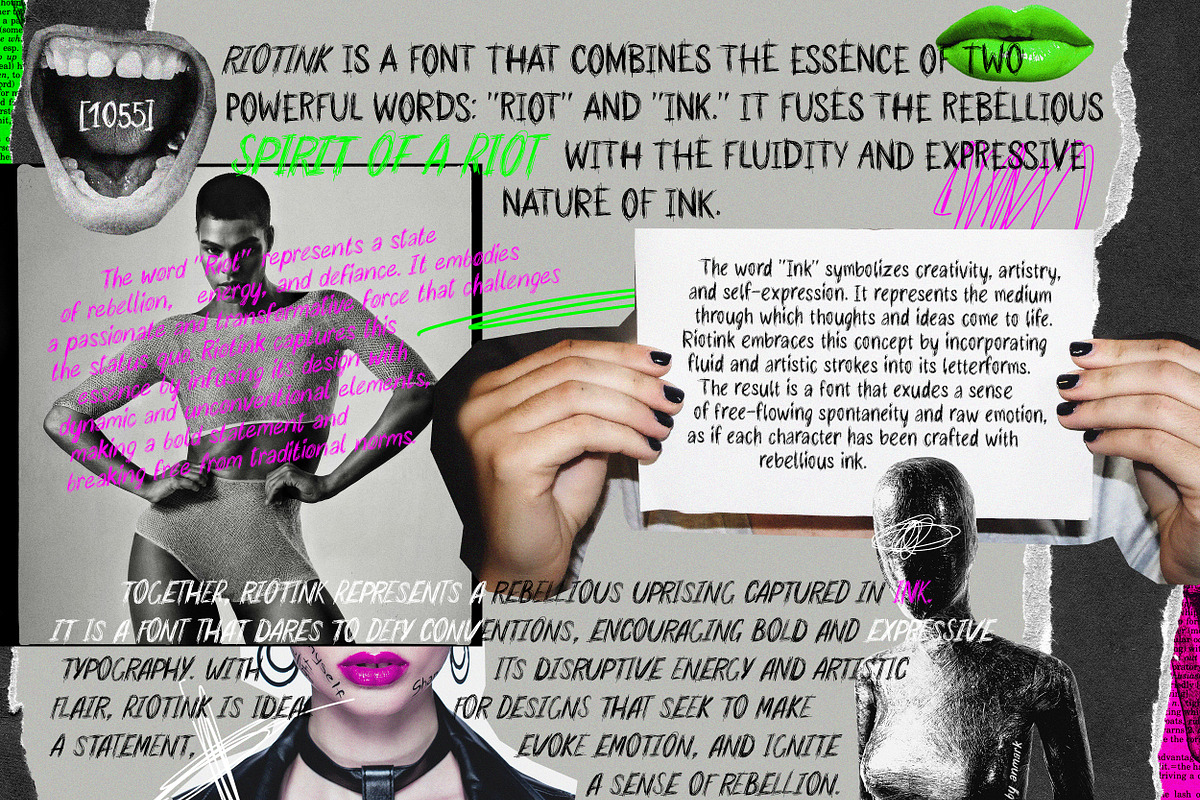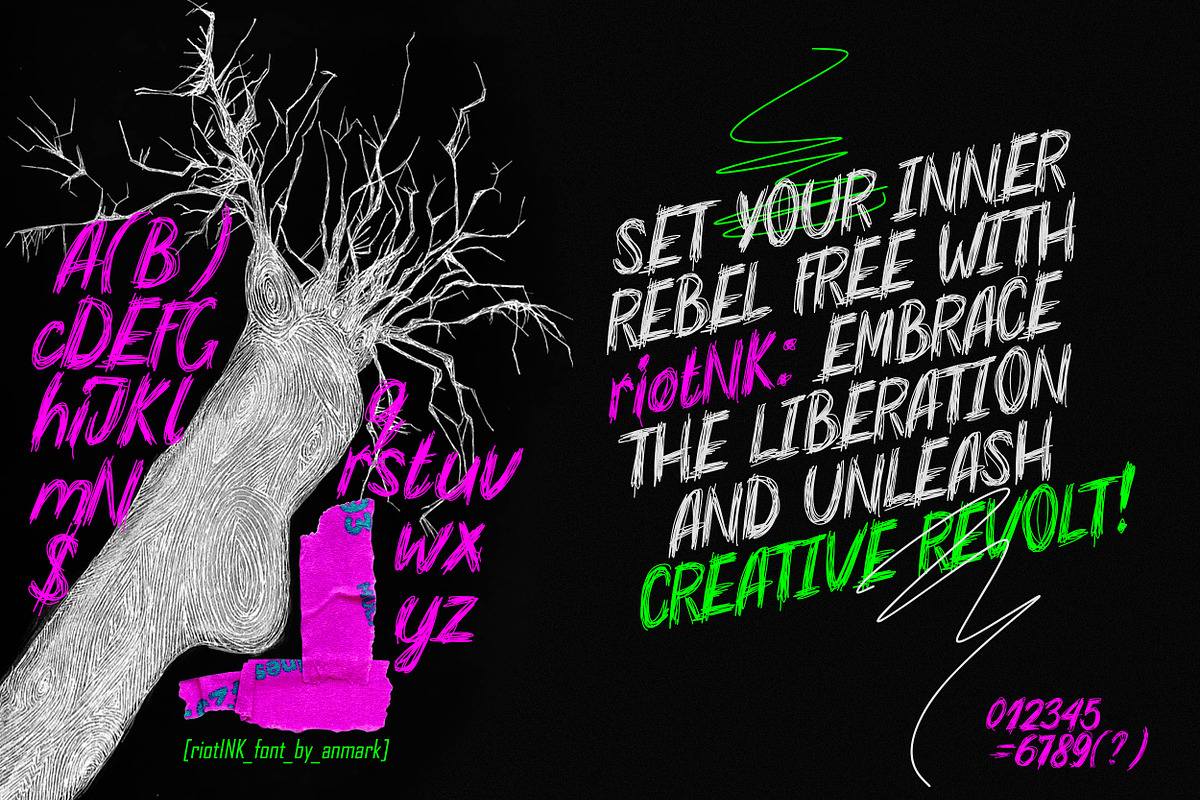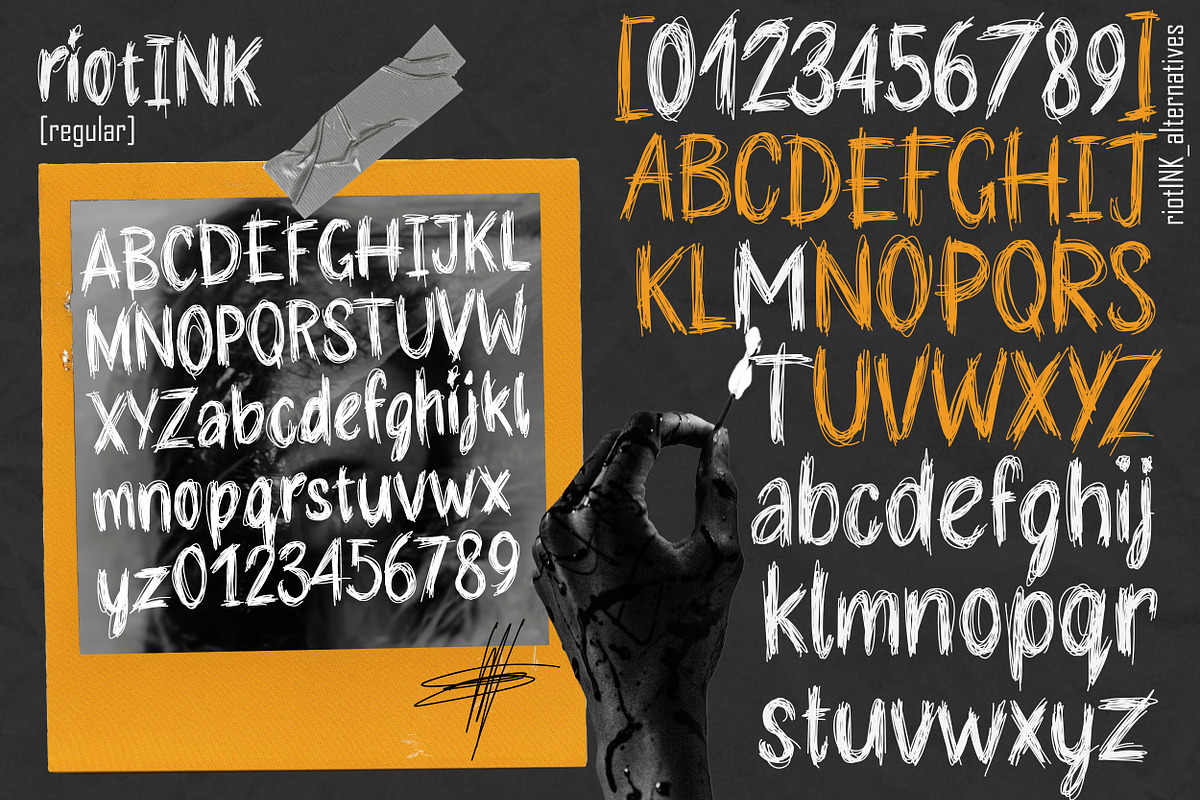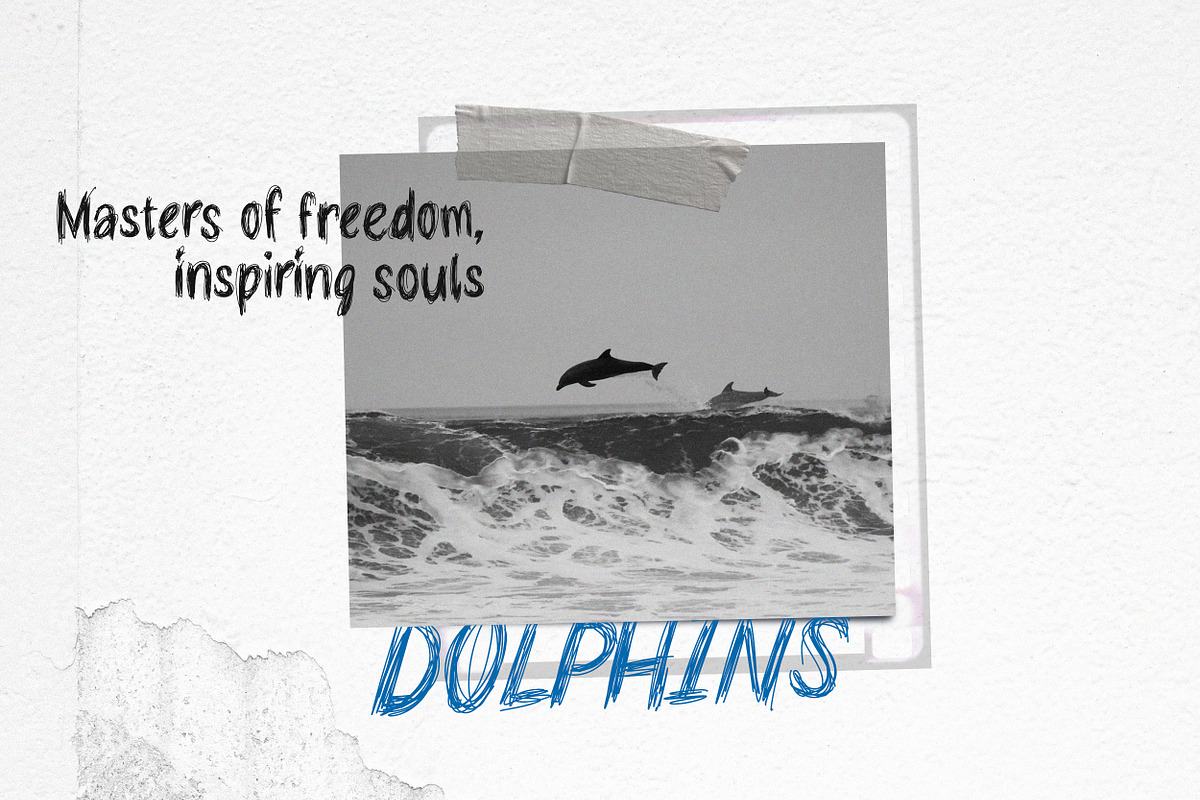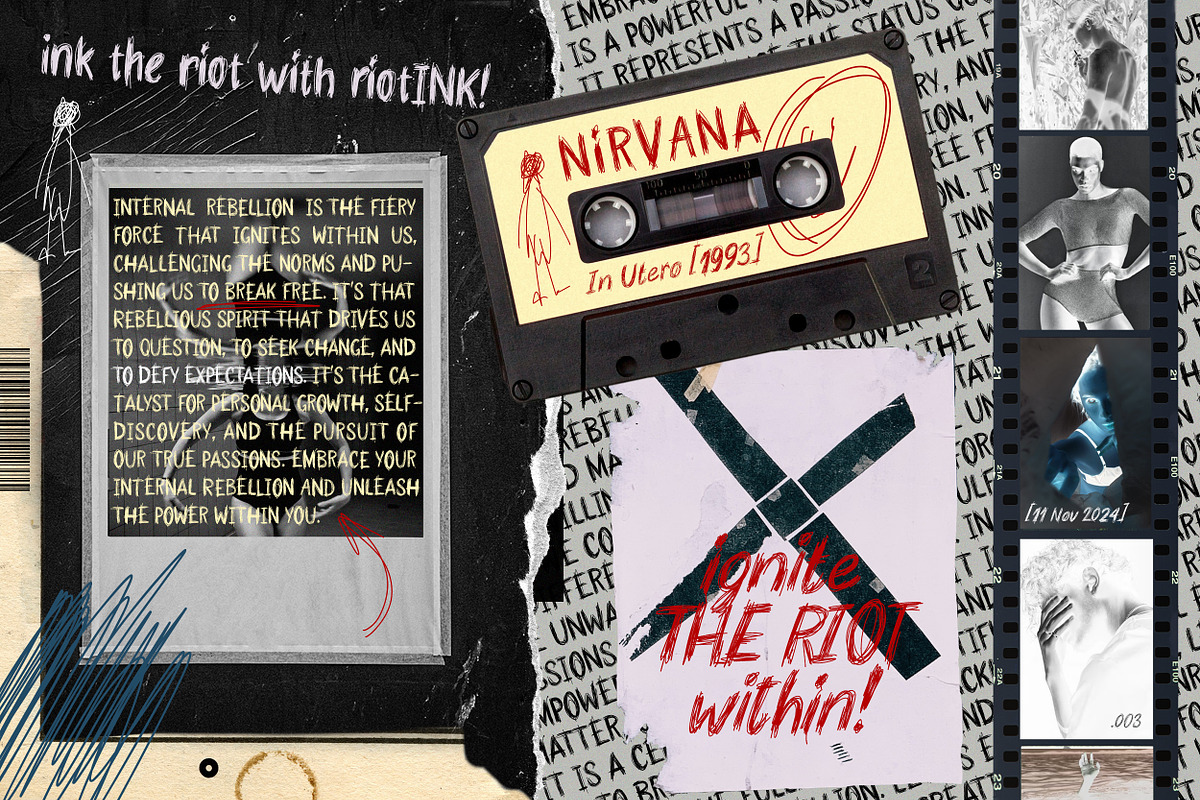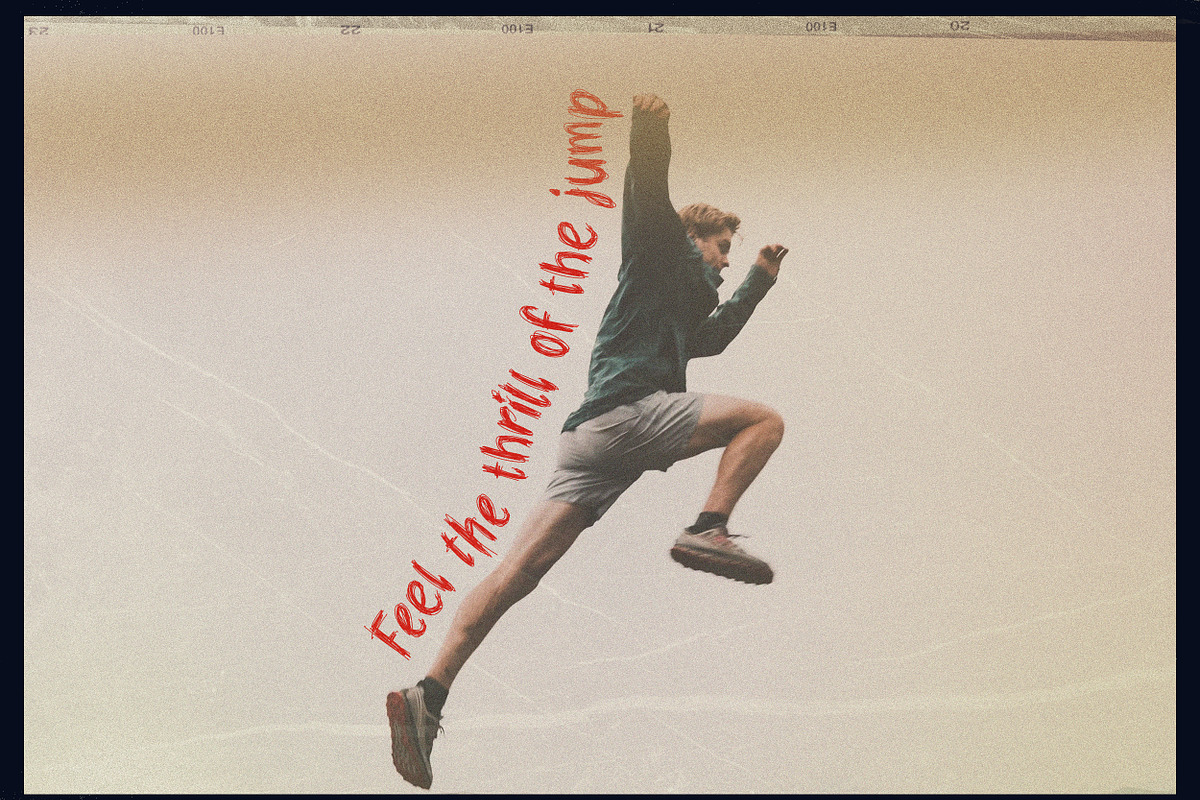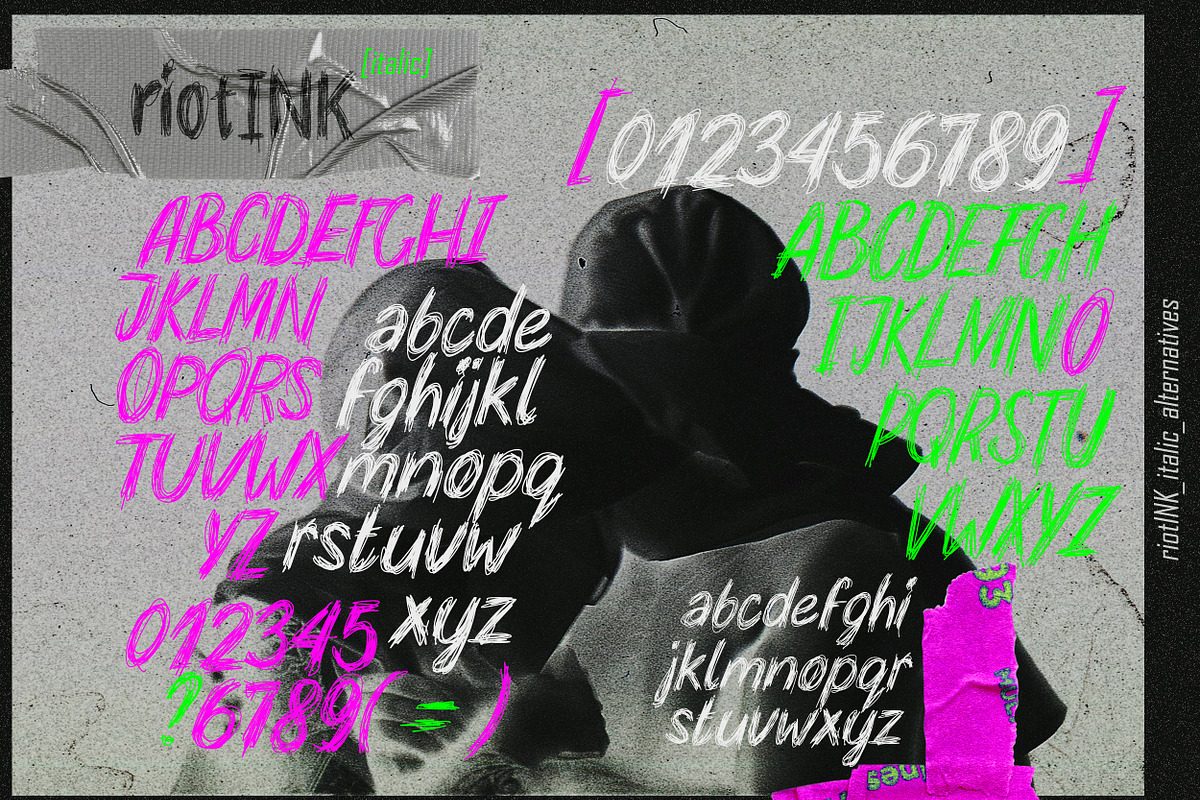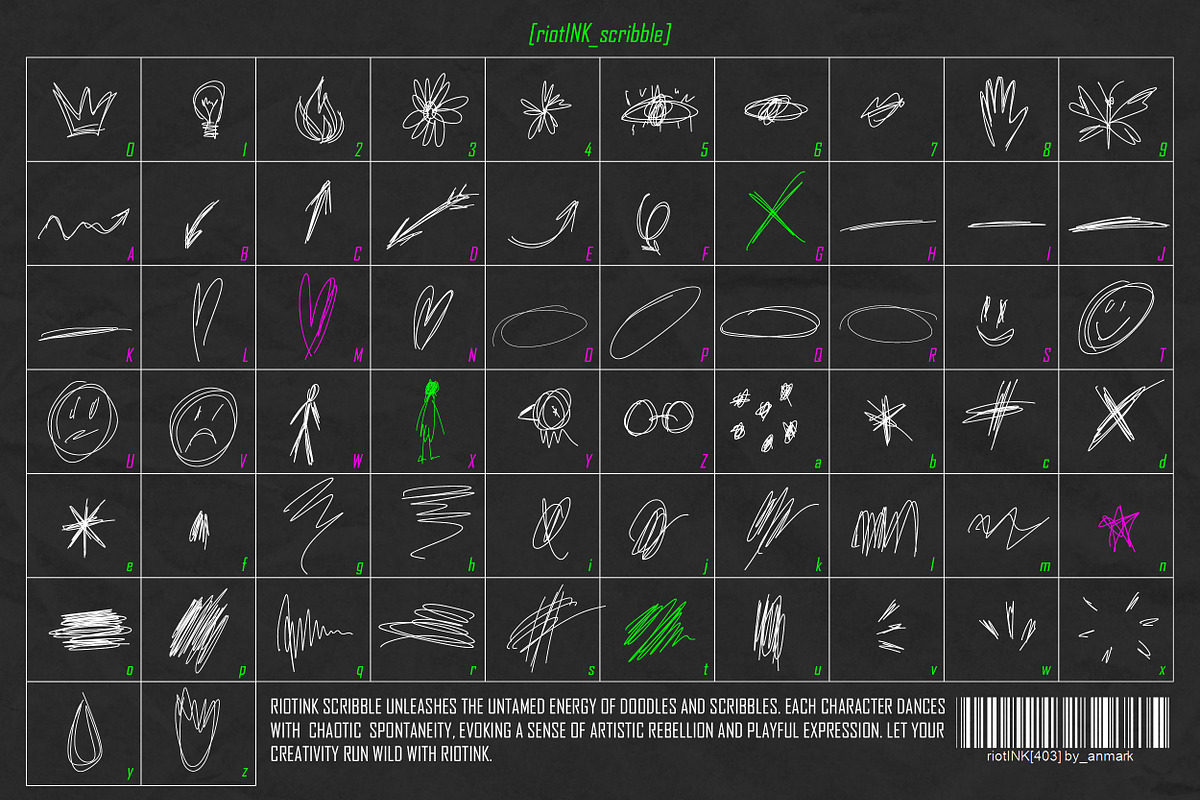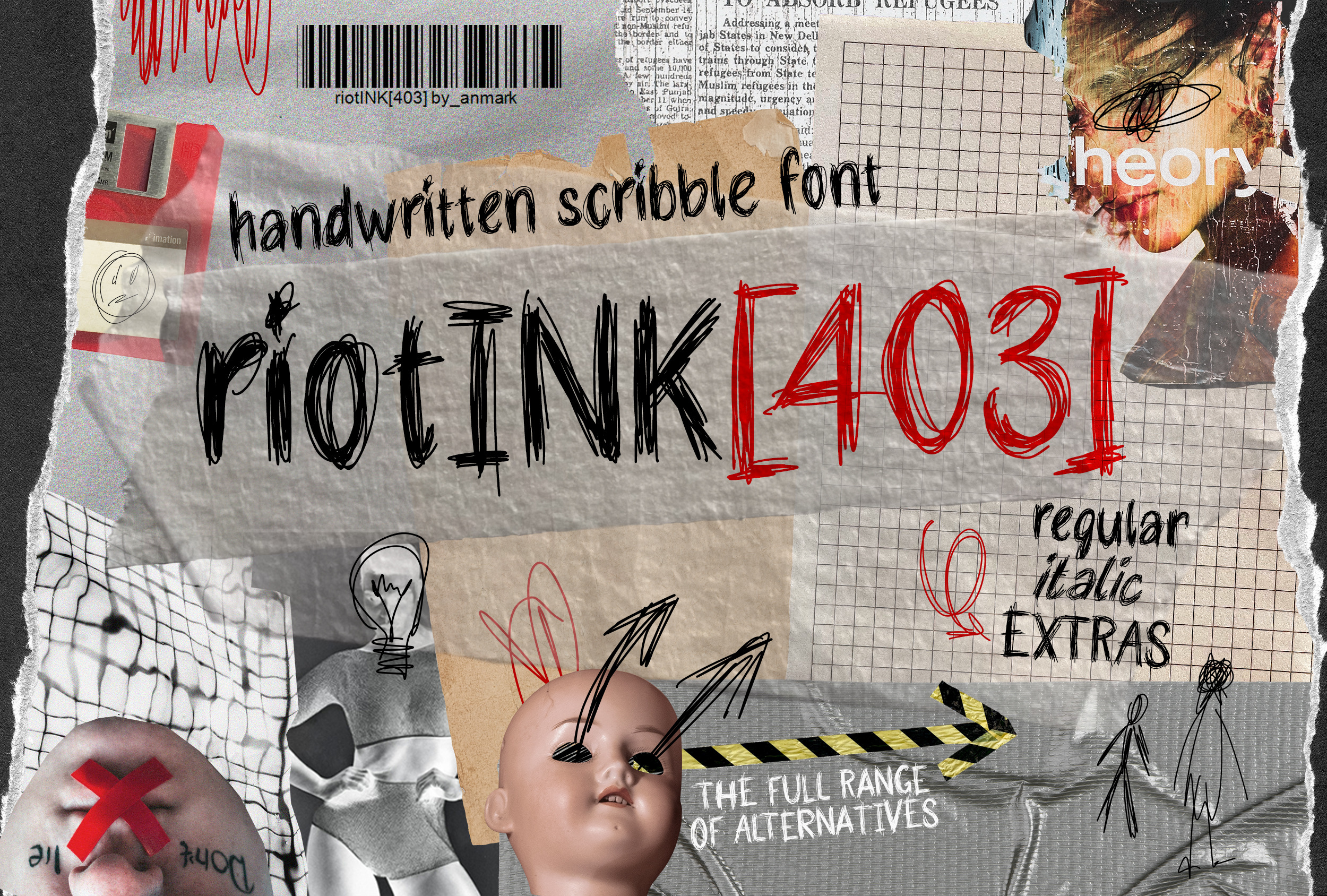
Riotink. Handwritten Scribble Font
RiotINK emerged from the collision of two powerful elements: riot and ink. It symbolizes the fusion of rebellious energy and the fluidity of artistic expression. Just as riots disrupt the status quo, RiotINK disrupts traditional typography with its scribble font, creating a unique and captivating visual experience. This name embodies the spirit of creative rebellion, inviting you to break free from norms and unleash your imagination onto the page.
RiotINK is a captivating handwritten scribble font that exudes an authentic rebellious spirit. With three distinct styles - regular, italic, and scribble - it offers a versatile range of options for creative expression. The Scribble variant pushes the boundaries of conventional typography, featuring whimsical and chaotic doodles in place of traditional letterforms. Whether you're seeking a touch of playfulness or an edgy design element, RiotINK is the perfect choice to infuse your projects with a rebellious and artistic flair.